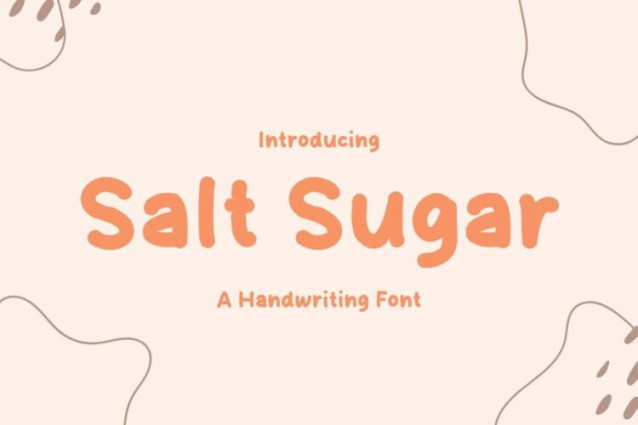
Salt Sugar Font
Salt Sugar Font a sweet and friendly handwritten font. Cute and fun, this font is ideal for writing wedding invitations, cards, or any other design that might need a fun touch!